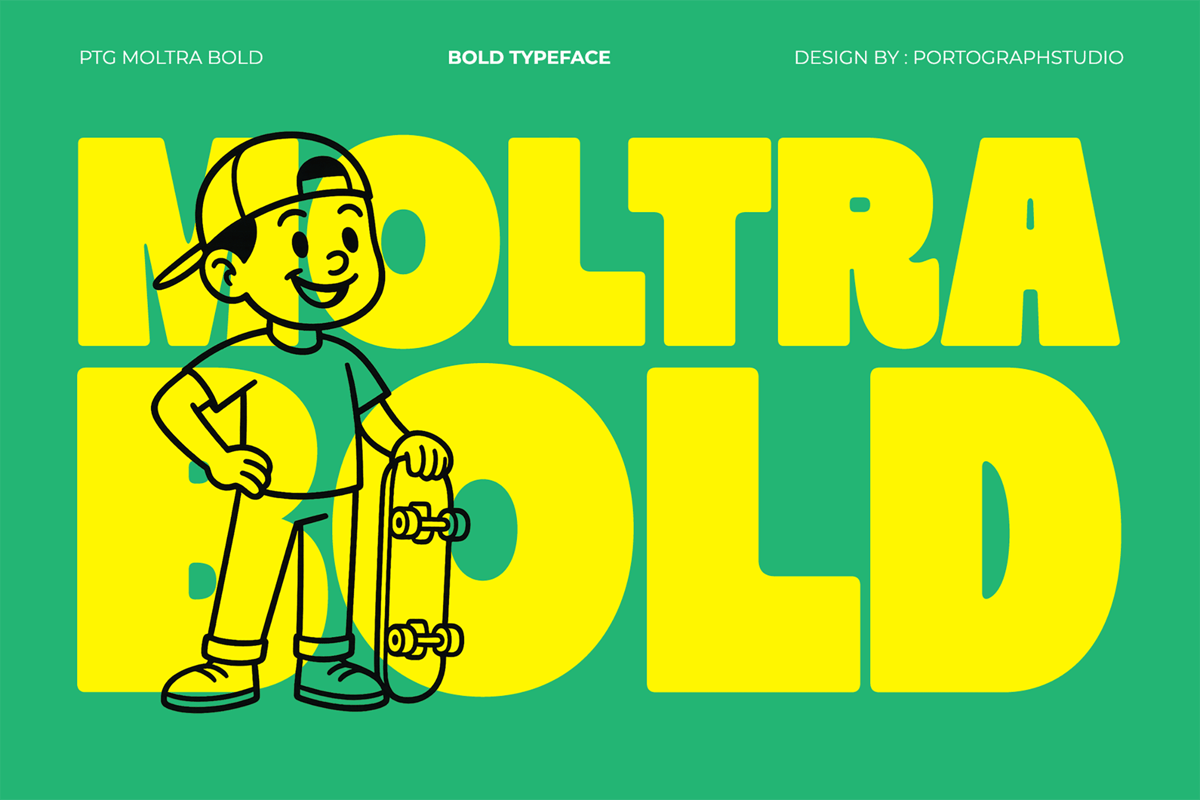
Moltra Bold - Food Font
Transform your designs with Moltra Bold - the chunky, character-packed display typeface that radiates fun and confidence. This playful font features bold shapes and friendly curves that instantly grab attention and add personality to any project. Perfect for creating memorable branding, eye-catching packaging, dynamic posters, engaging social media graphics, and delightful children's projects. In Package: TTF WOFF WOFF2 Features: Web Font ready Tons of glyphs Ligatures & Alternates PC & Mac comp...